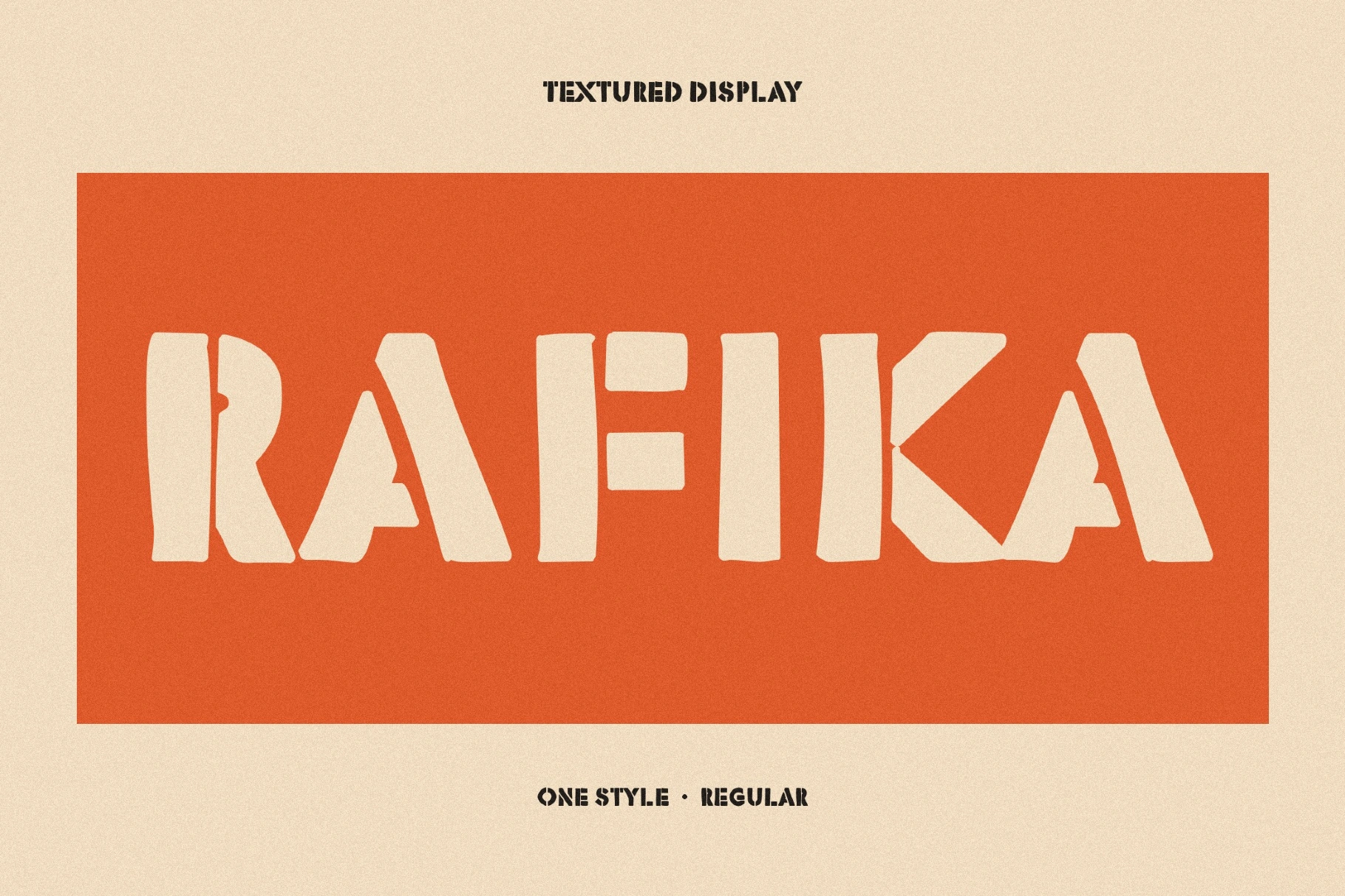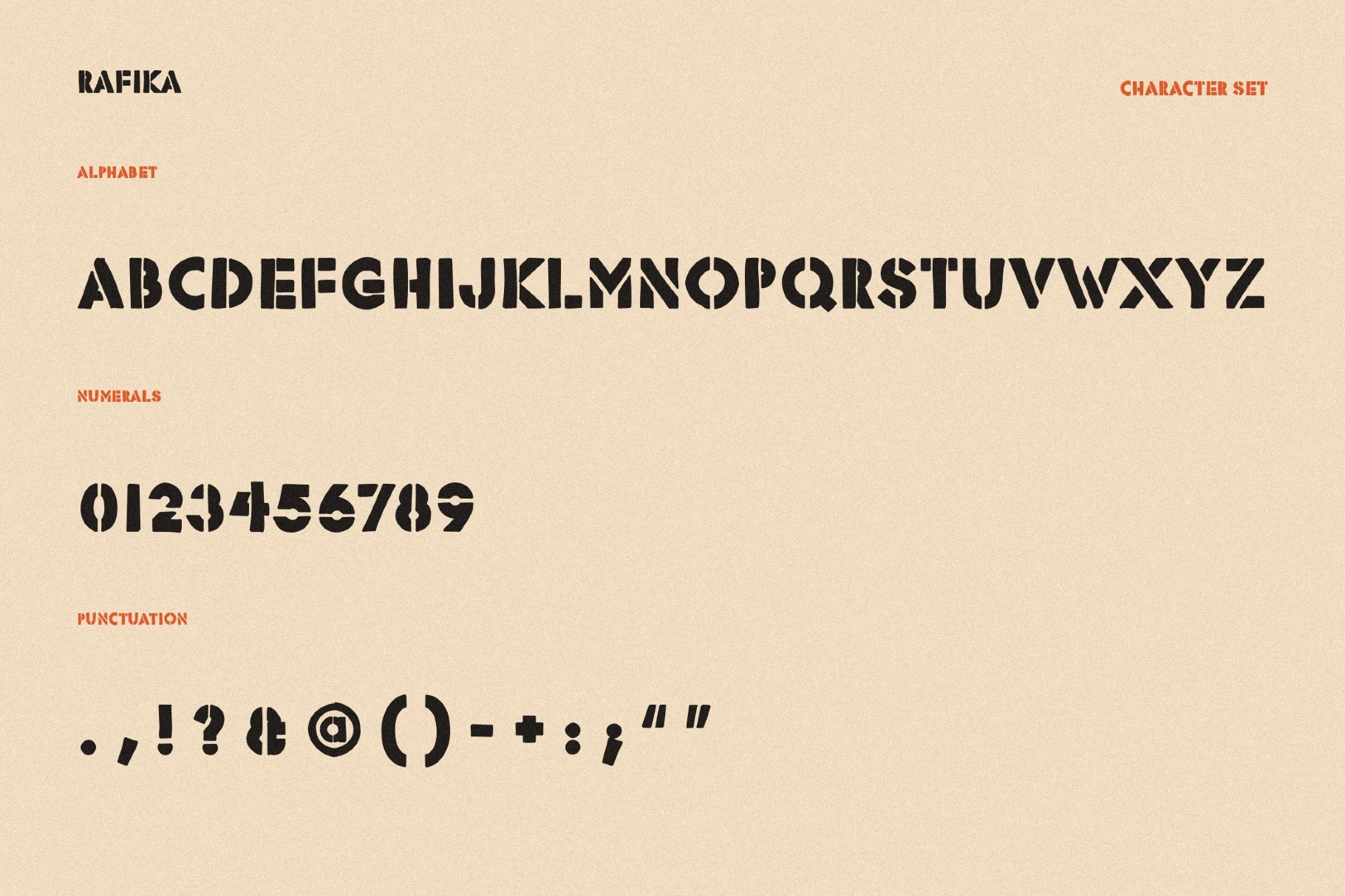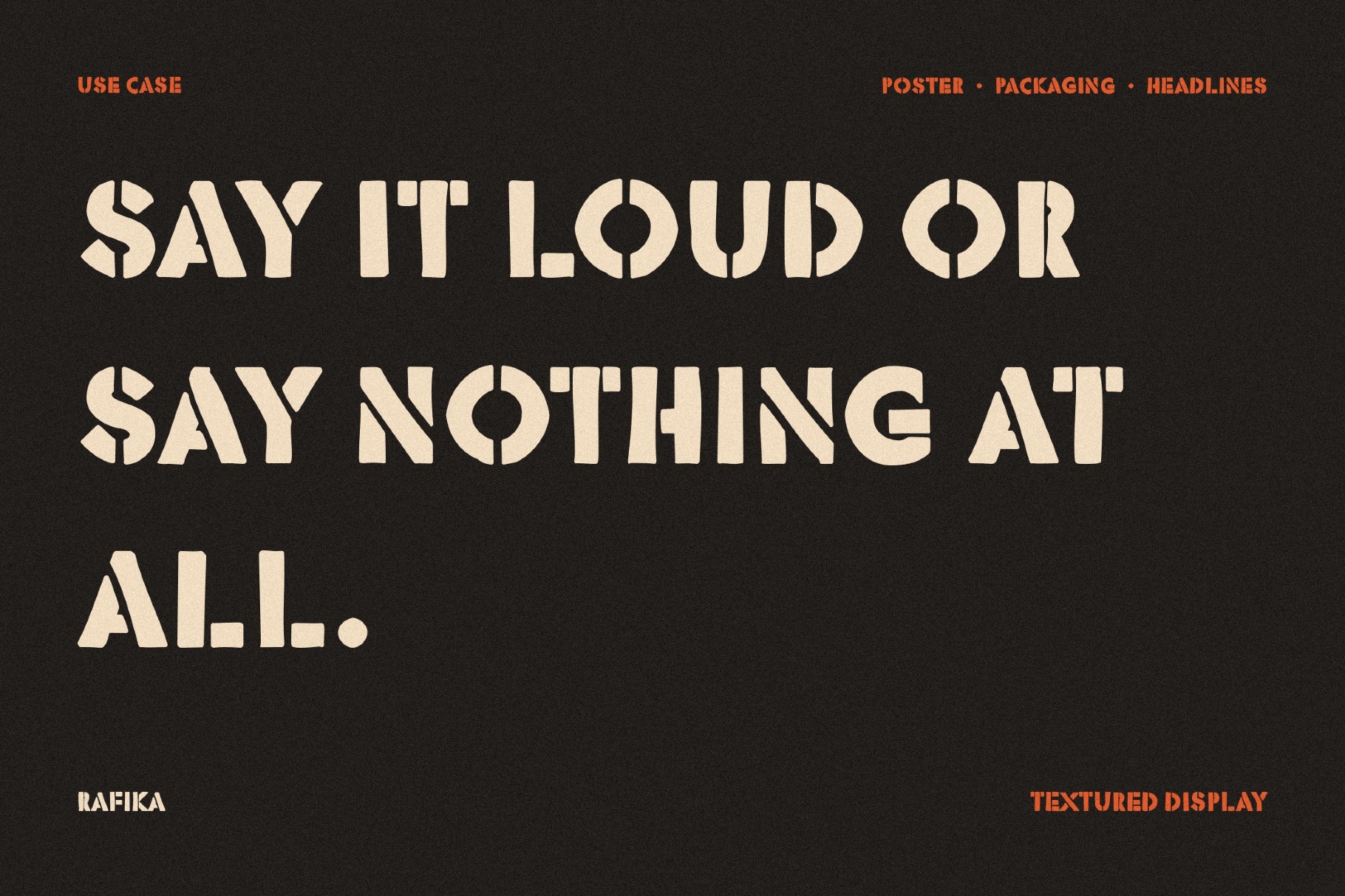
Rafika - Grunge Stencil Font
Rafika
Rafika is a grunge stencil font with sliced counters, angled cuts, and blocky proportions that echo 1970s athletic lettering, military crate markings, reggae-era poster art, and handmade street signage. The open breaks and assertive rhythm make it strong for tournament graphics, sports merch, music festival identities, beachwear labels, team branding, festival posters, apparel prints, album covers, skateboard decks, bold packaging, and social media headers.